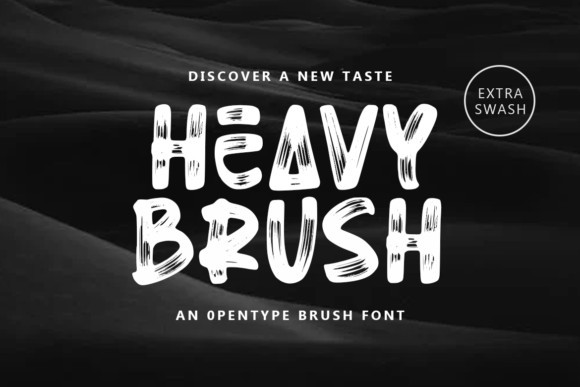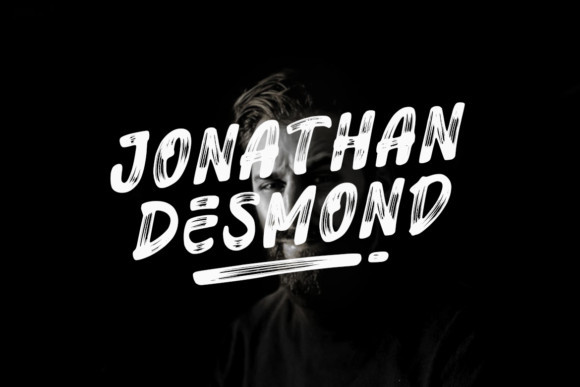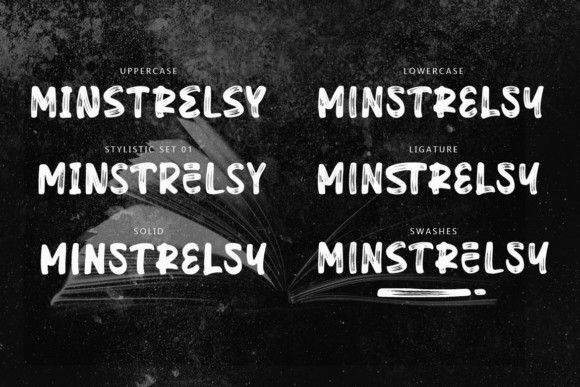
Heavy Brush Font
Heavy Brush is a cool and bold display font. ideal for urban or street designs, this font will instantly make your creations look catchy and trendy.